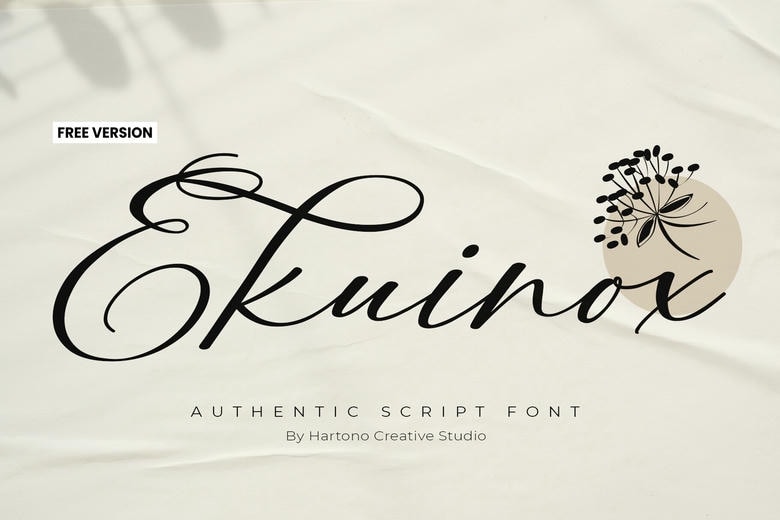
Ekuinox is a script font, which looks very beautiful and its letters are joined with curves and lines. She must have borrowed it from a calligrapher because it is smooth and it looks more or less handwritten, which imprints a personal and stylish tone to any style. Great for making stunning logos and invites or any other projects you may come across.
Ekuinox Script Font